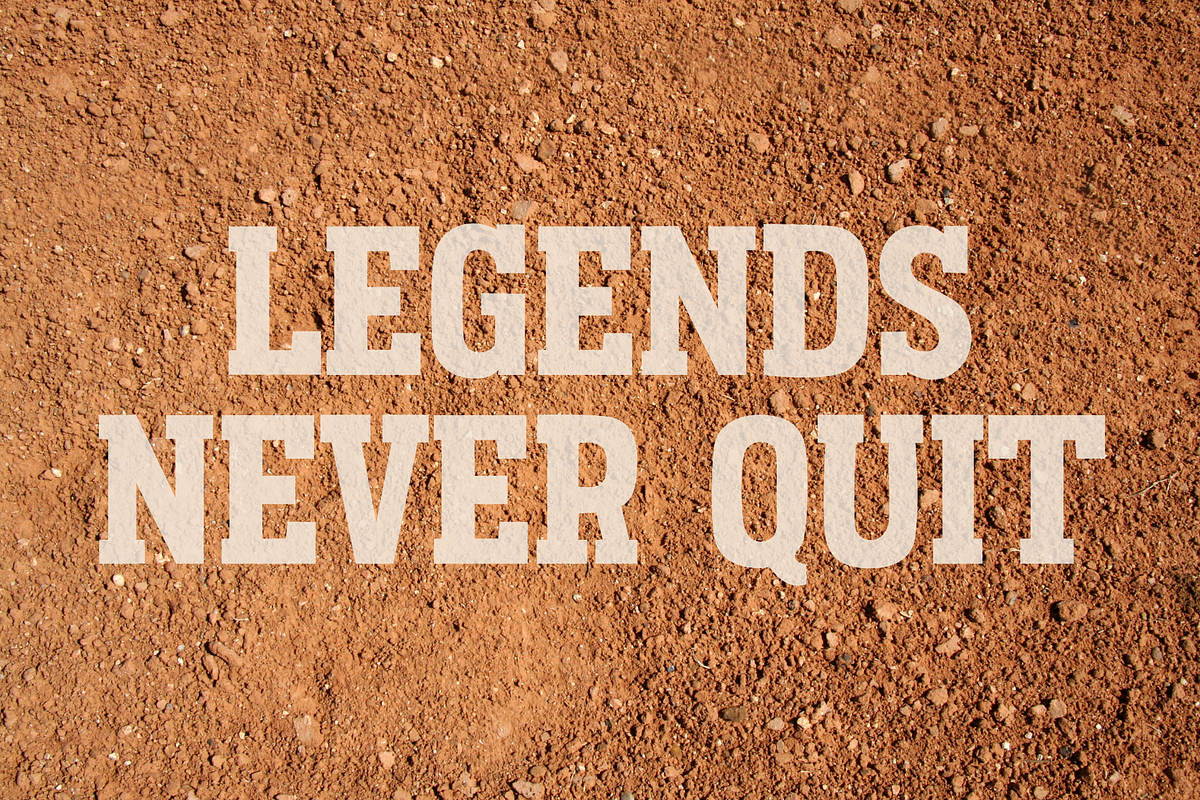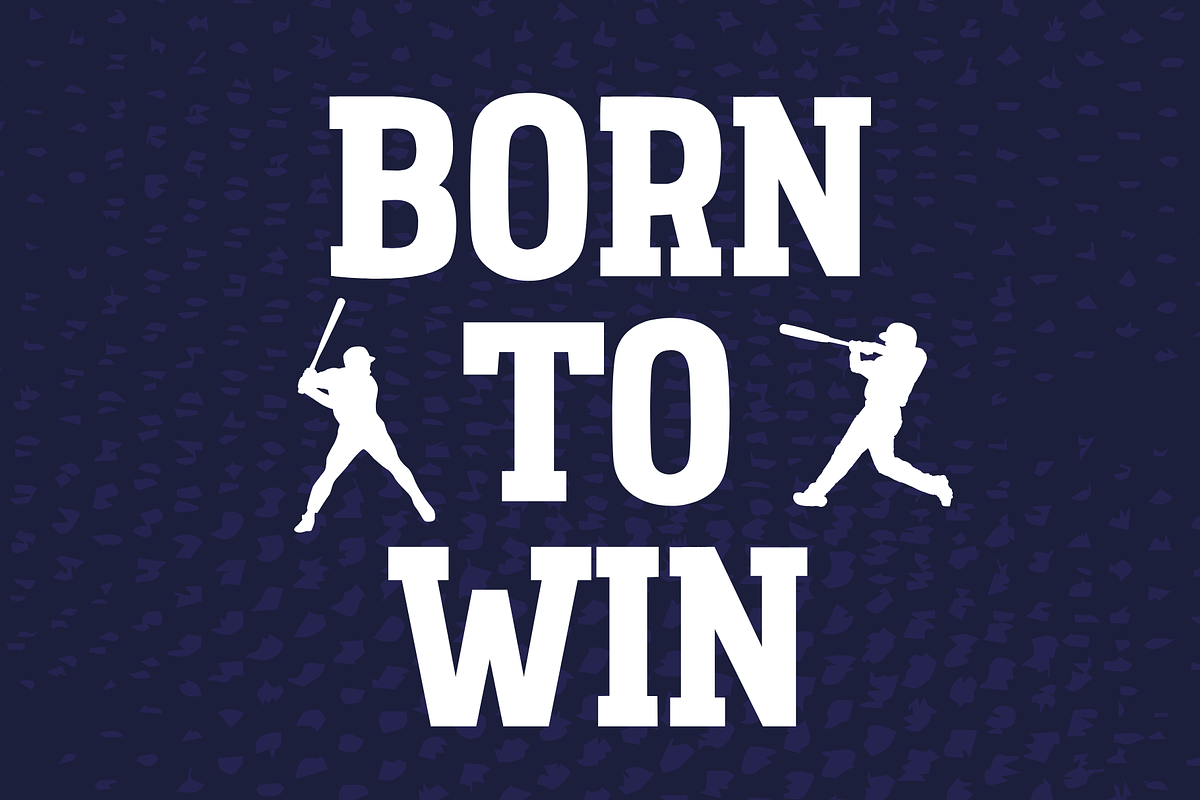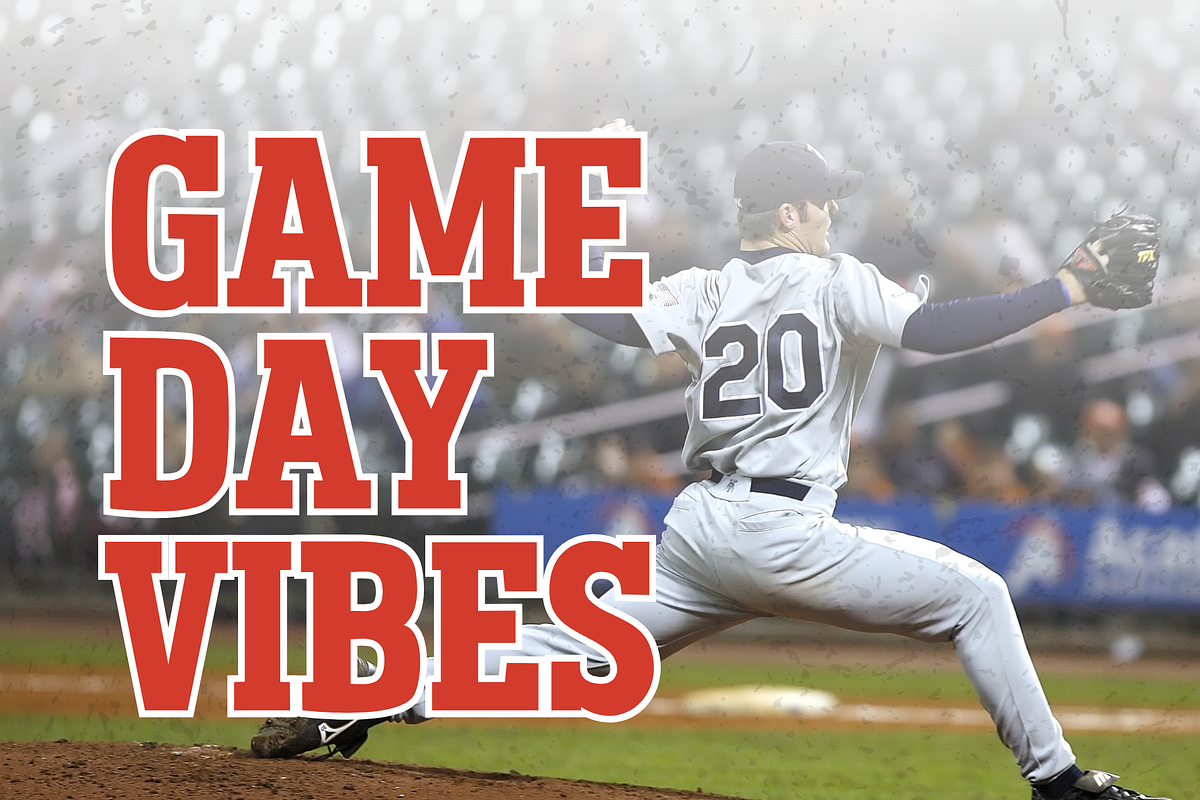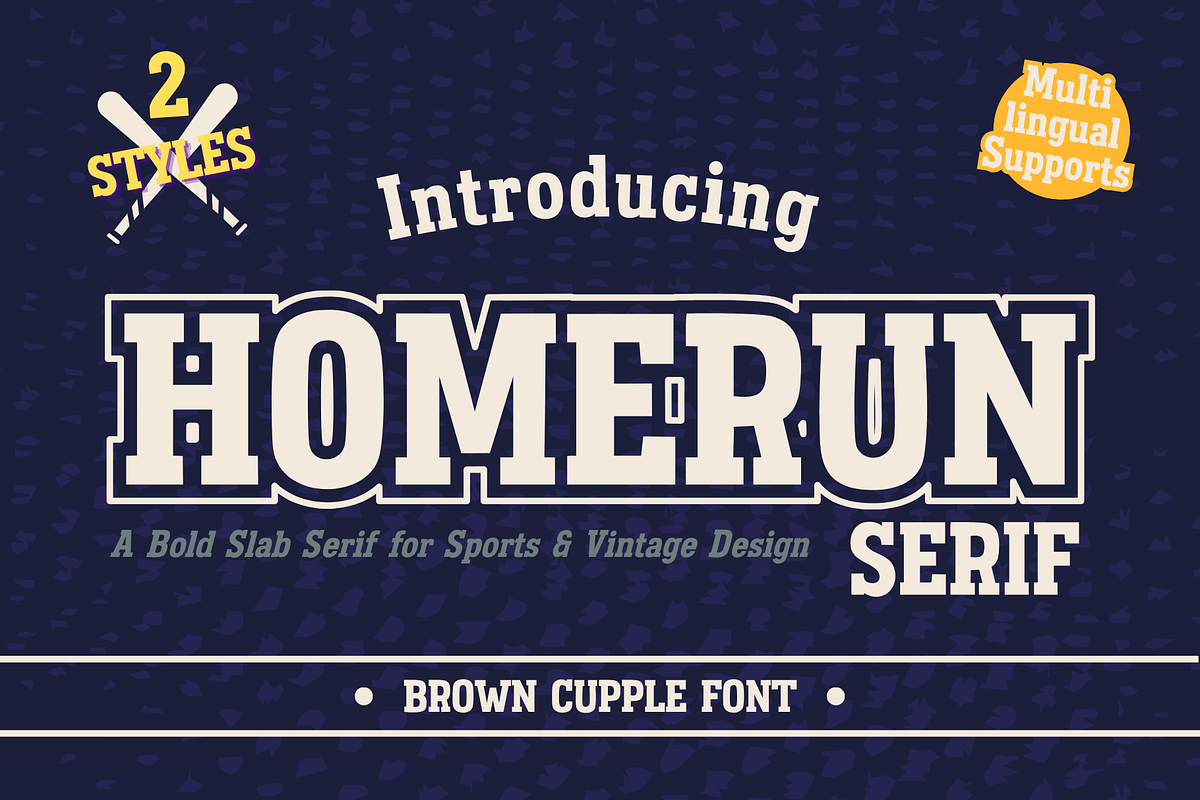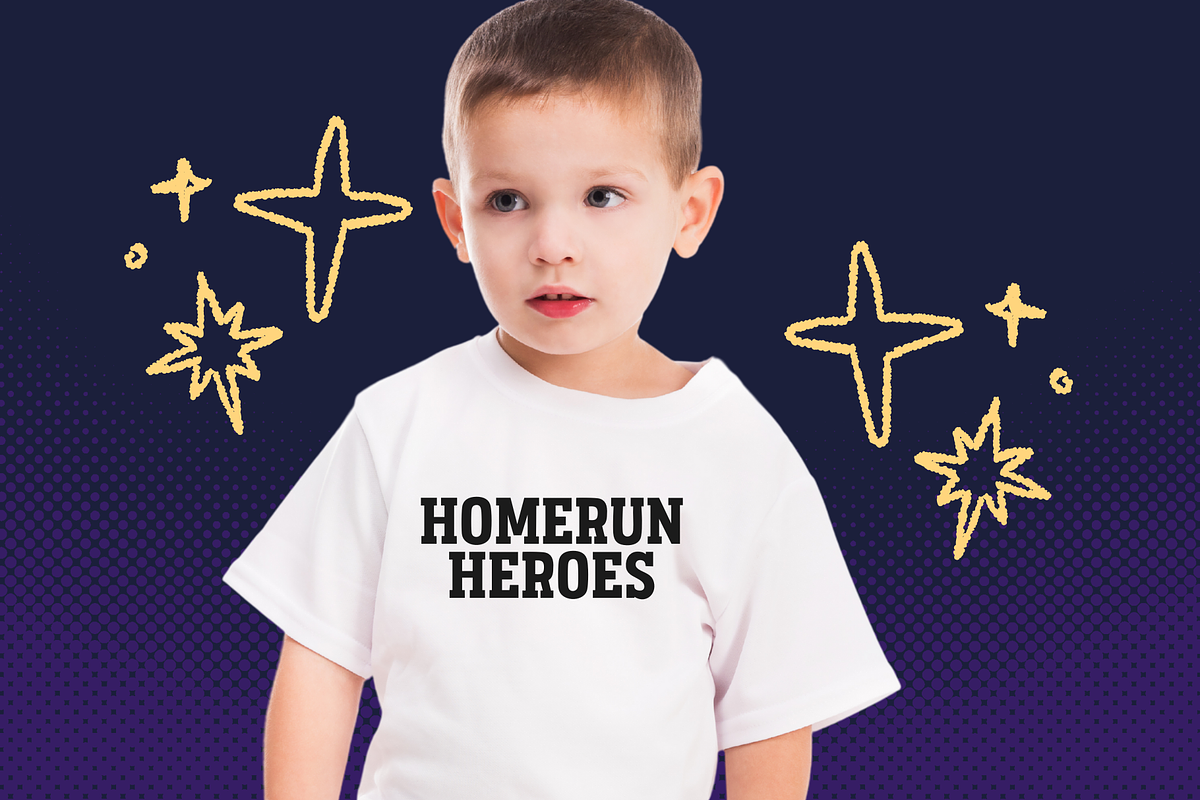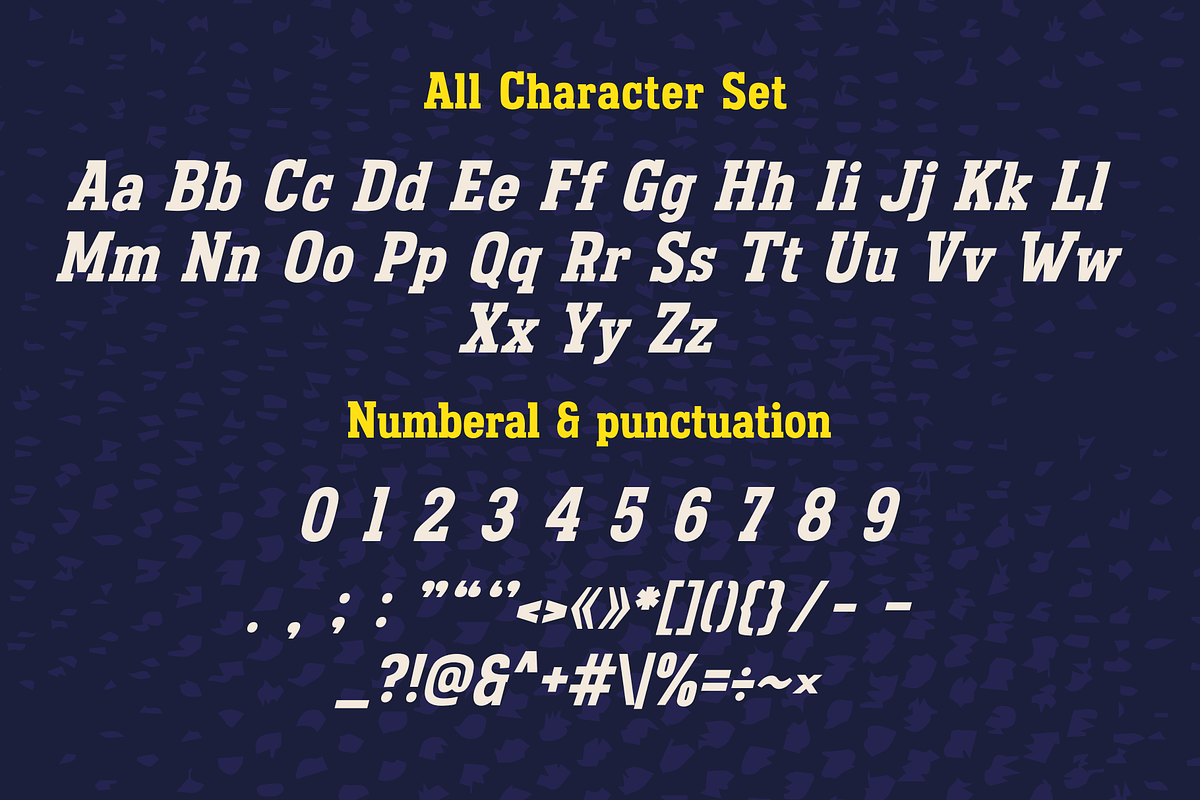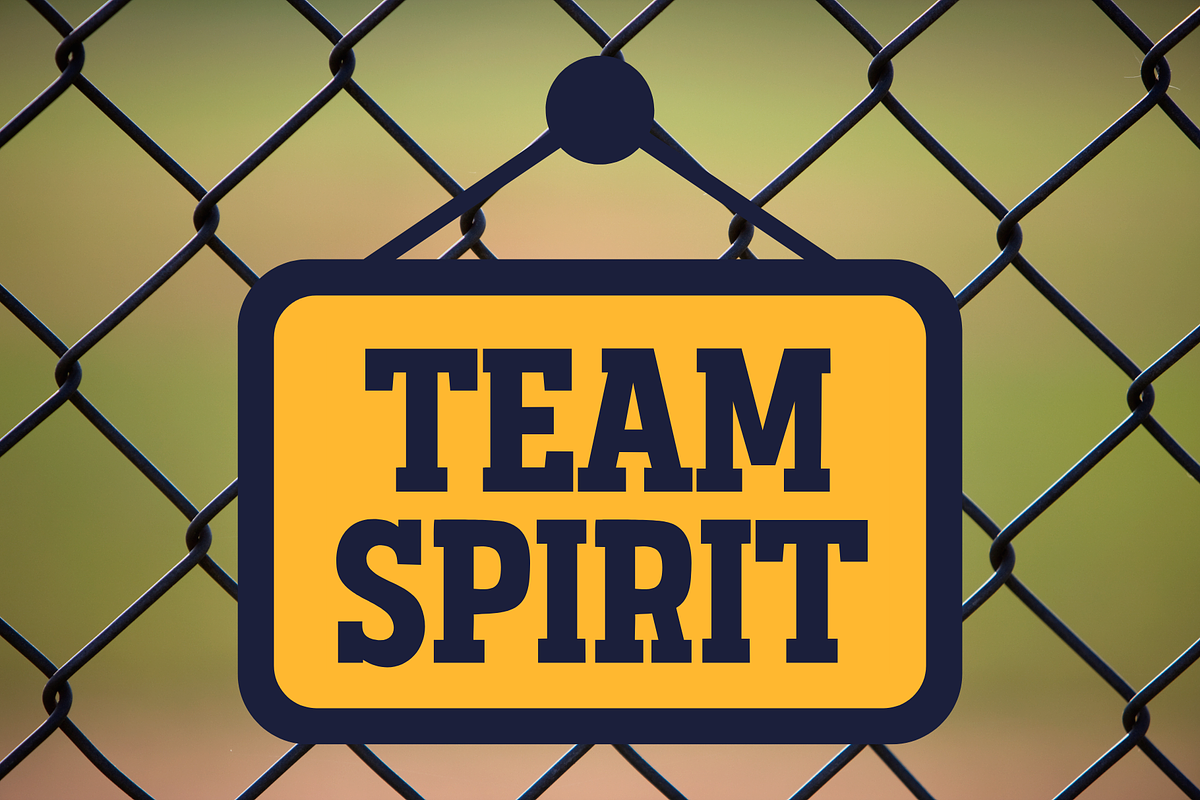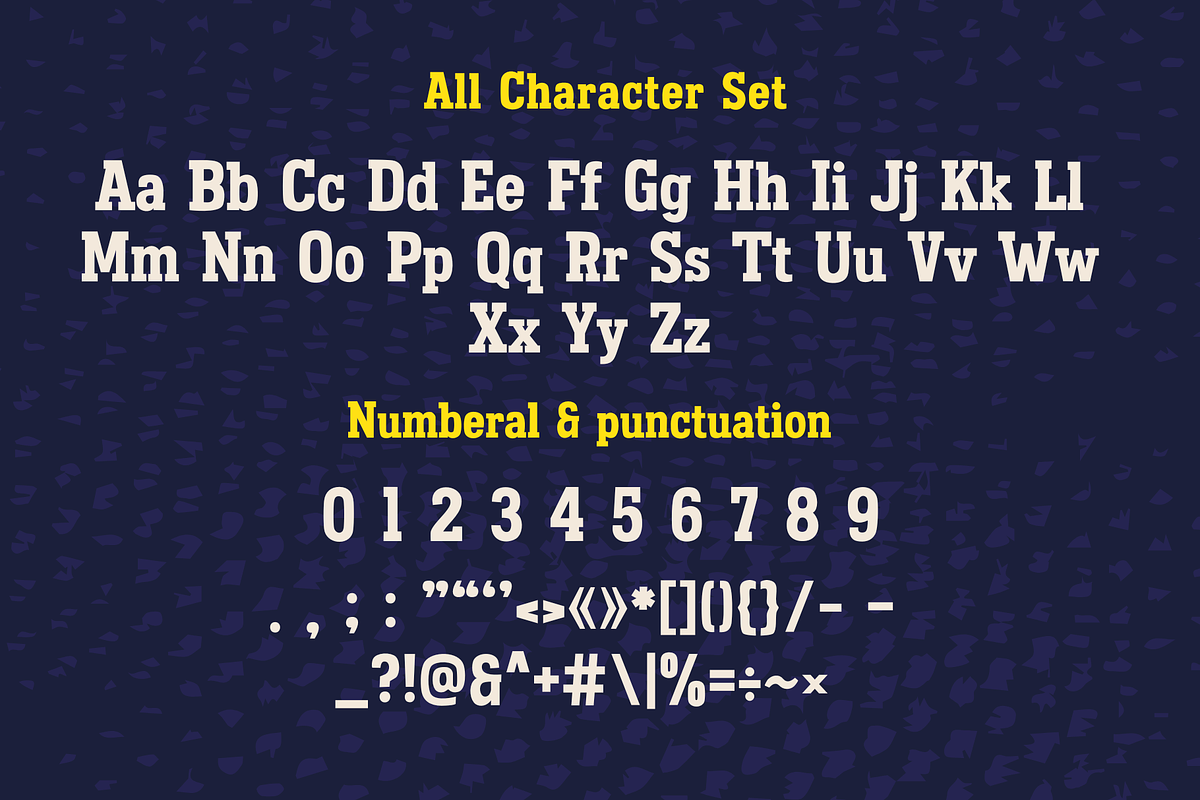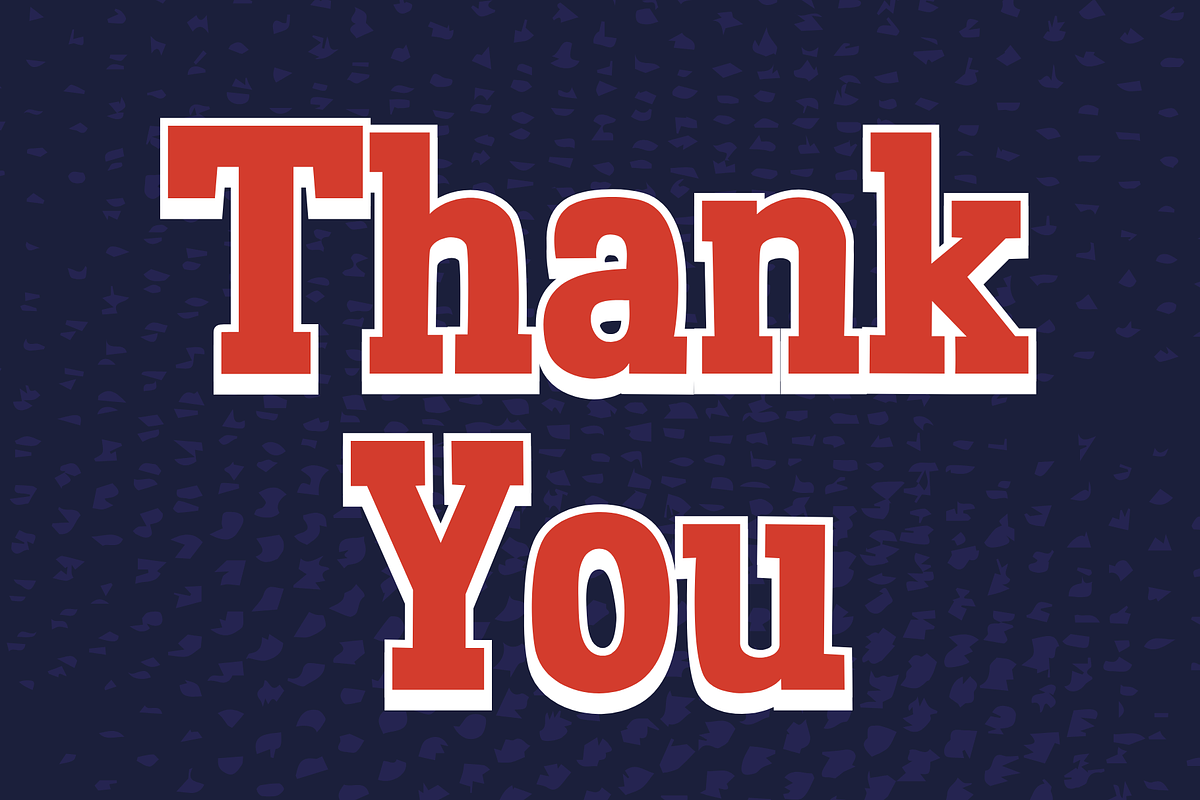
Homerun Serif - Sport font
Homerun Serif – A Bold, Vintage-Inspired Sports Typeface Step up to the plate with Homerun Serif – a bold and striking slab serif typeface inspired by the timeless spirit of baseball and classic athletic design. Crafted with thick, confident strokes and sharp edges, Homerun Serif brings a powerful presence to any design — whether it's a team logo, event poster, sportswear branding, or vintage-style editorial.
This font is not just about impact — it's about character. With a full set of uppercase and lowercase letters, numbers, punctuation, and essential symbols, Homerun Serif is made for both print and digital use. Alternate characters add extra flair, allowing you to create truly dynamic headlines and standout branding.